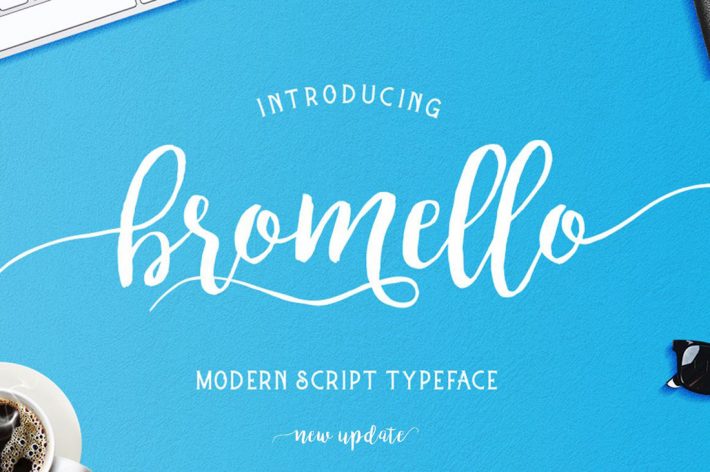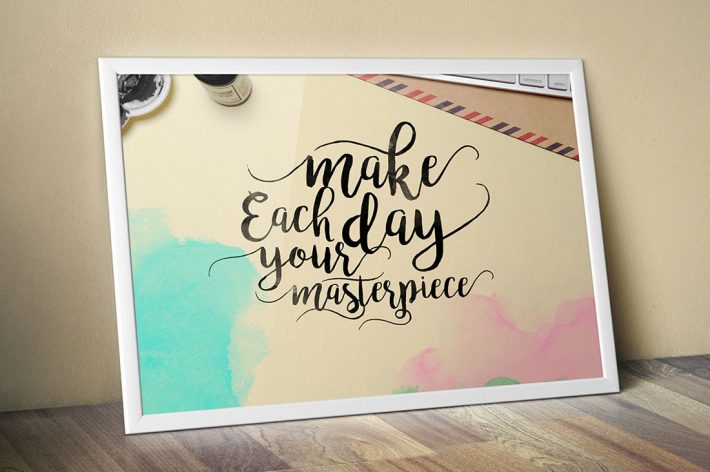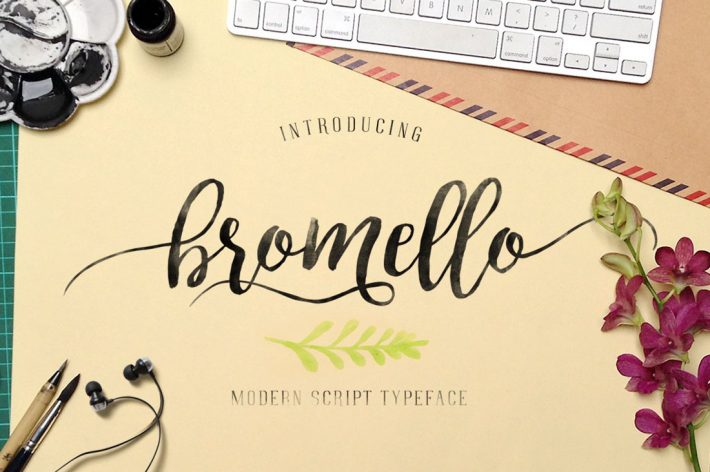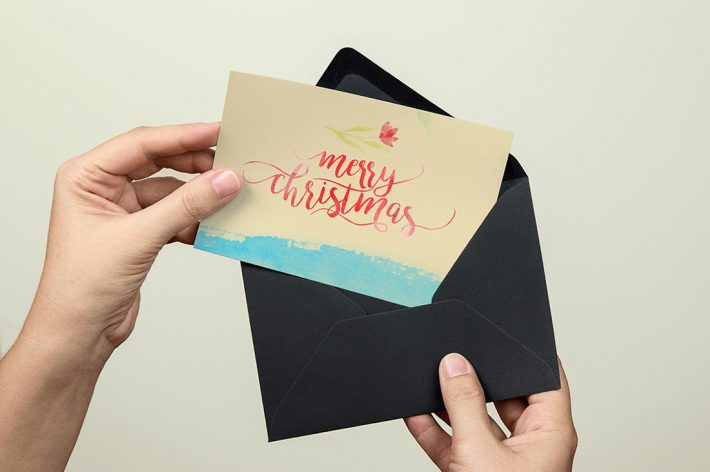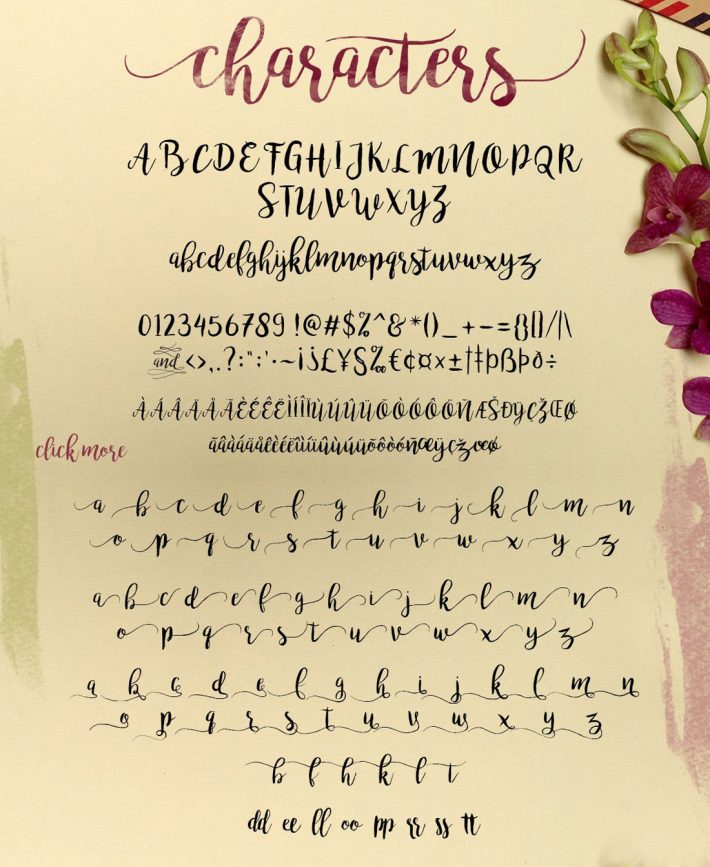
Bromello font is modern script typeface. This is style hand made with brushing typeface. Bromello font is a beautiful typeface, created by Alit Suarnegara.
This is perfect for invitation, wedding card design, website header, logotype fashion design and so on. Bromello Font comes with two format OTF & TTF format and having character set A-Z numerals & punctuations.